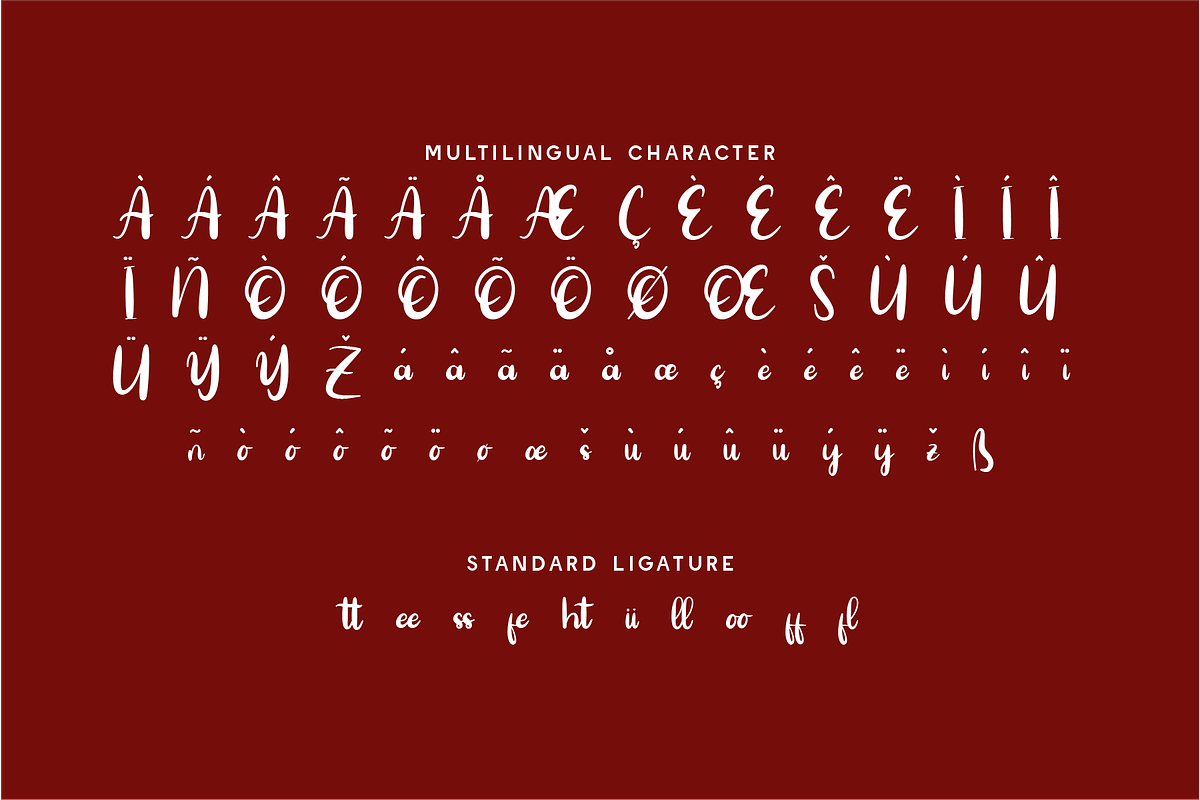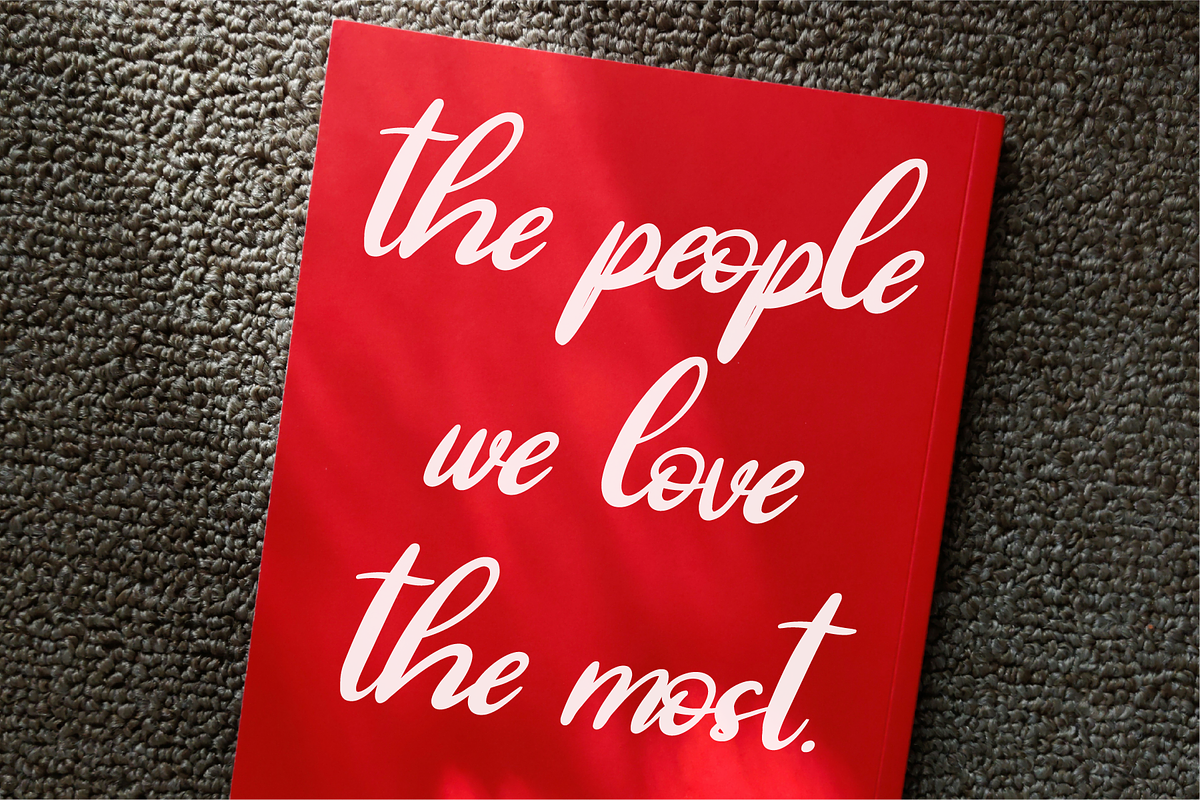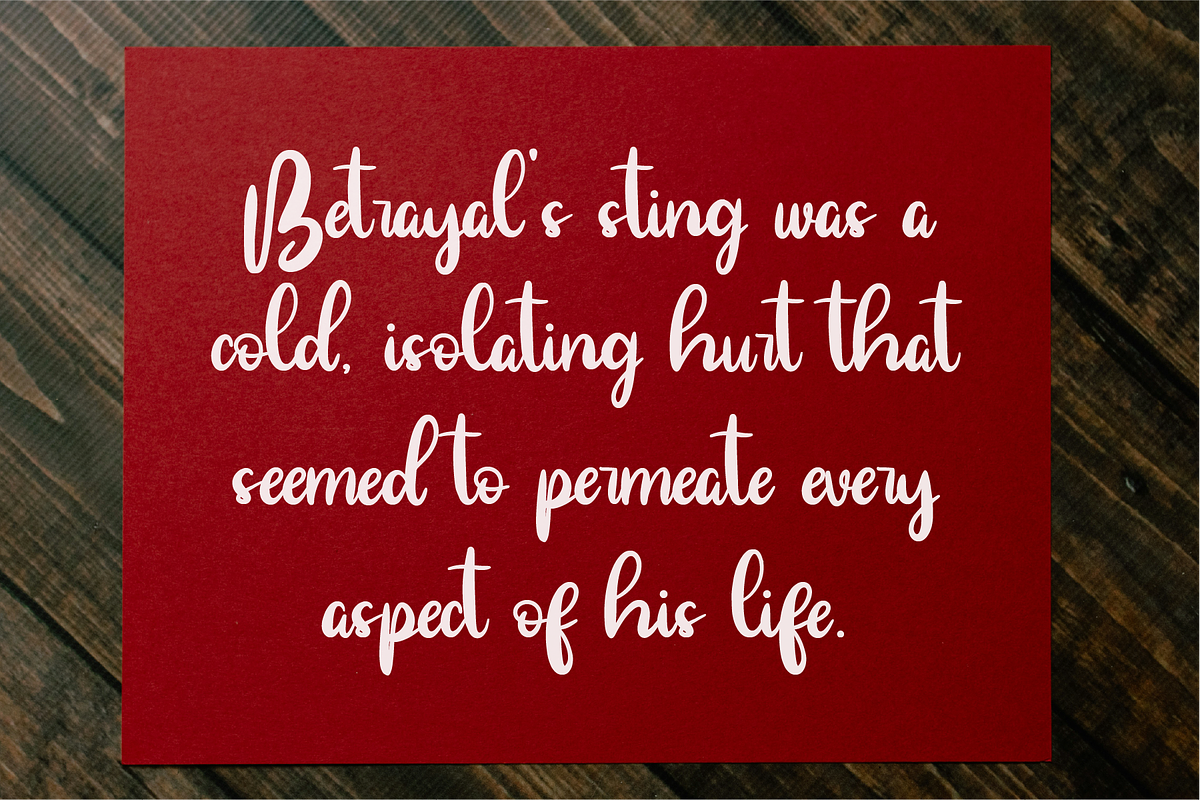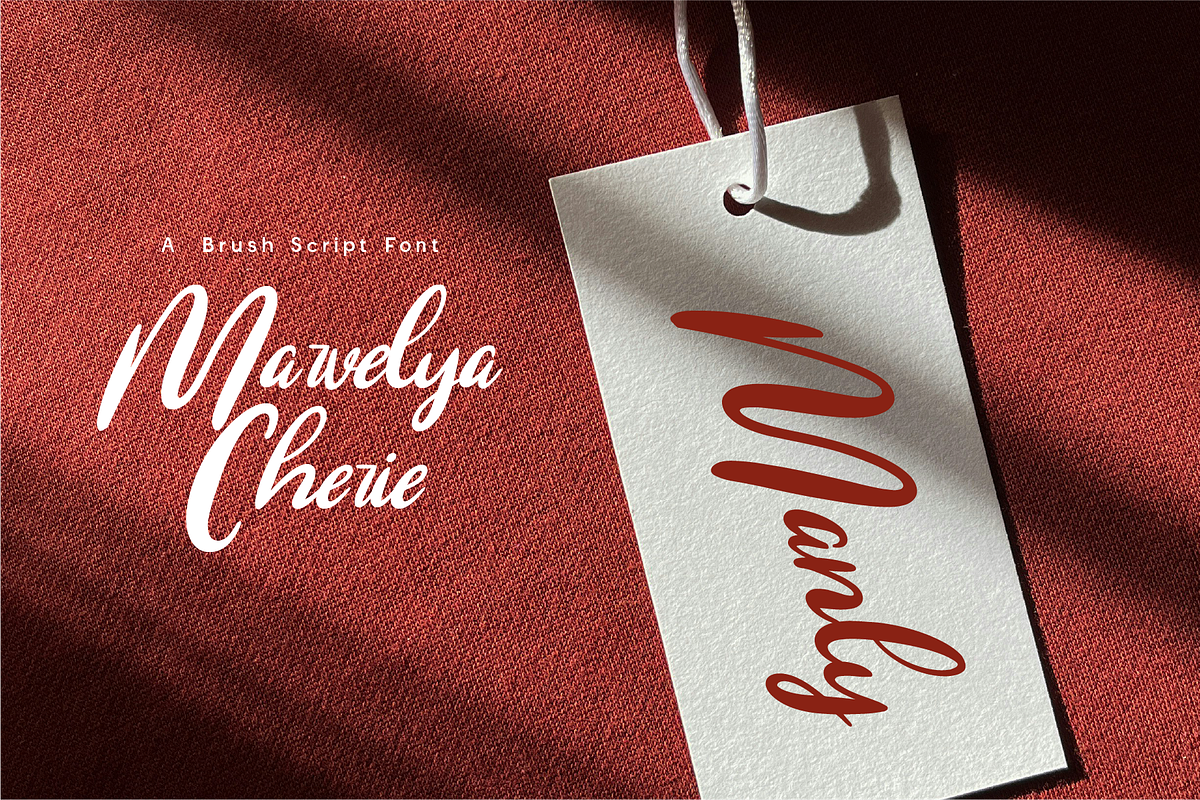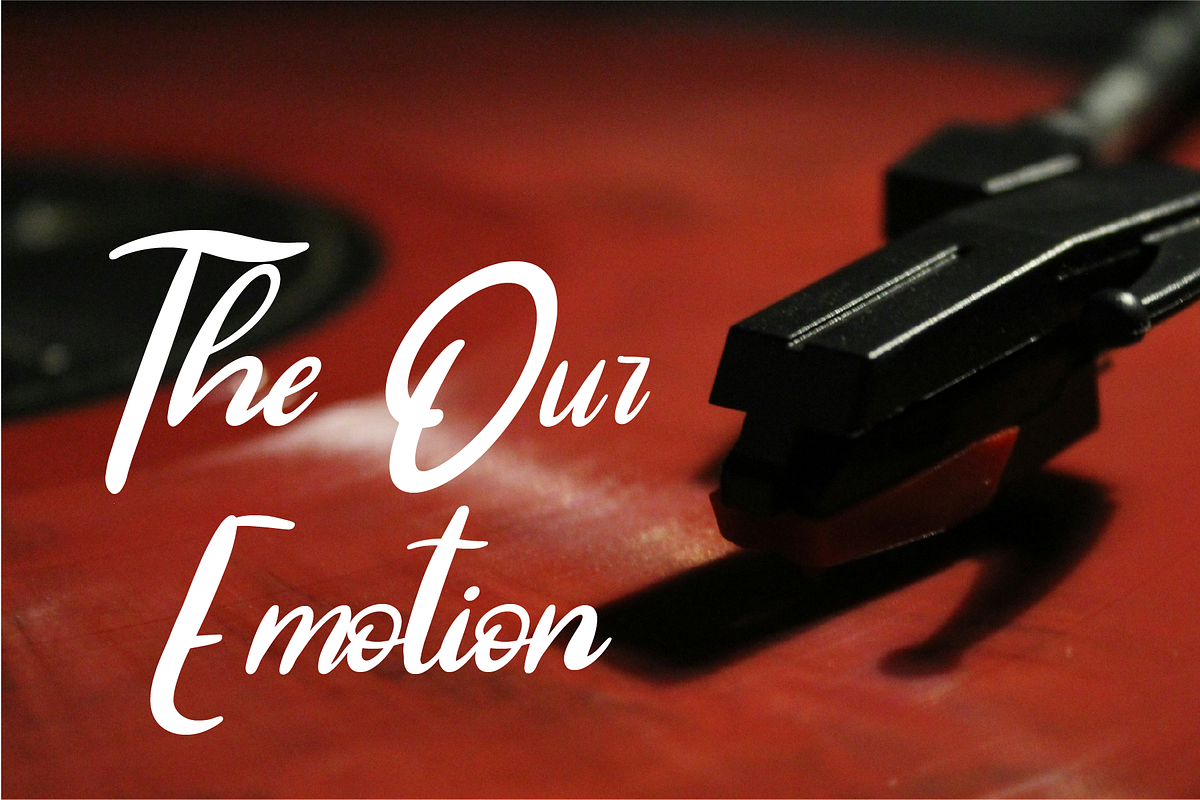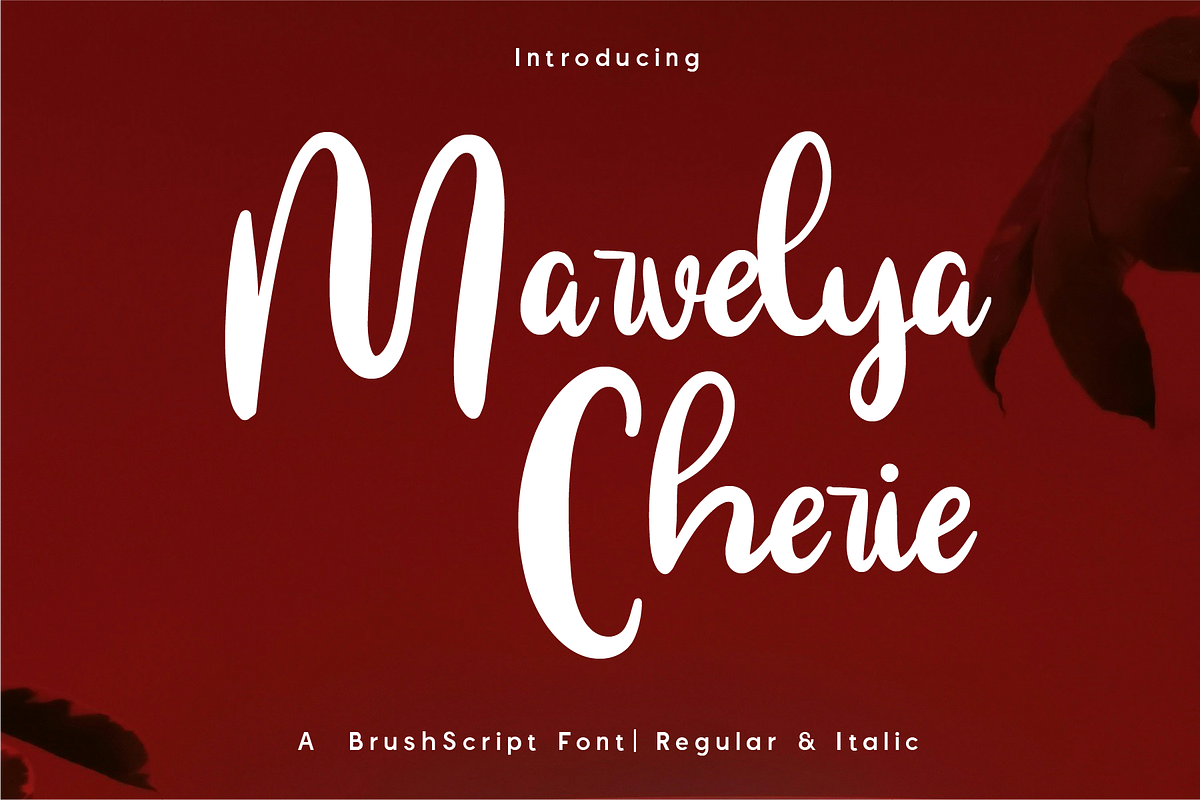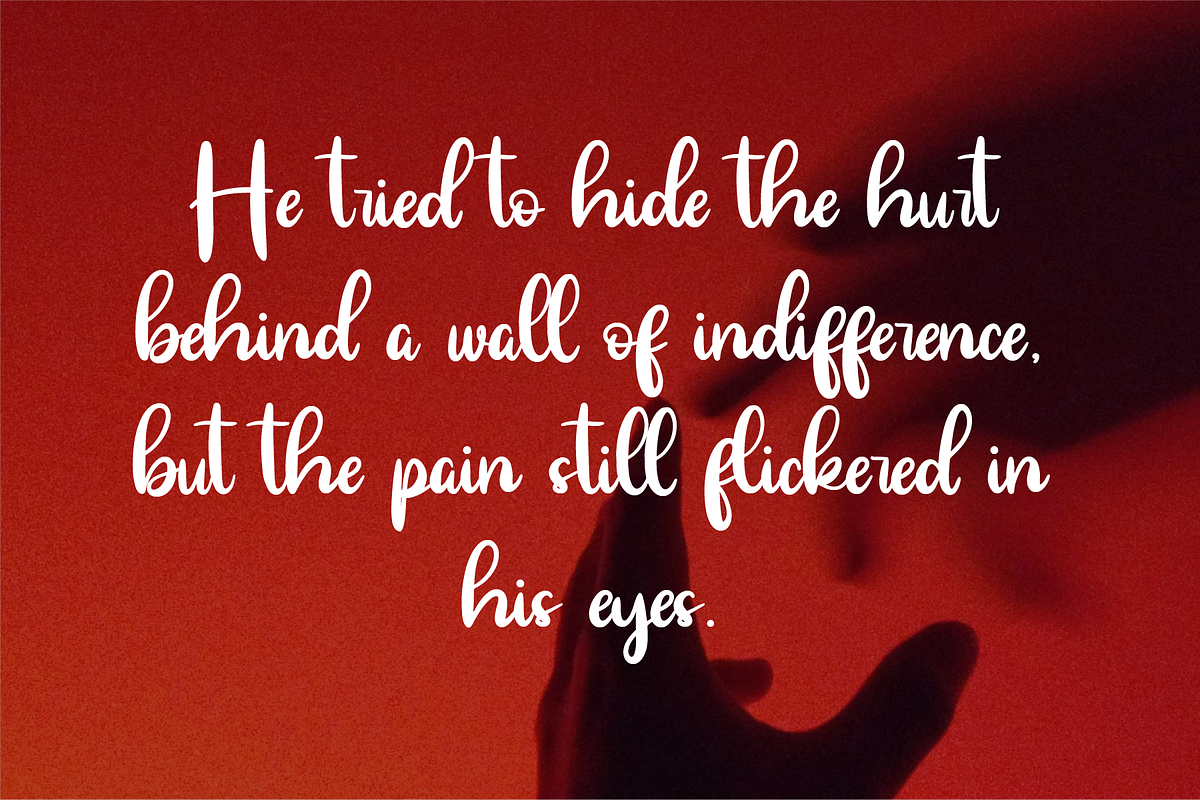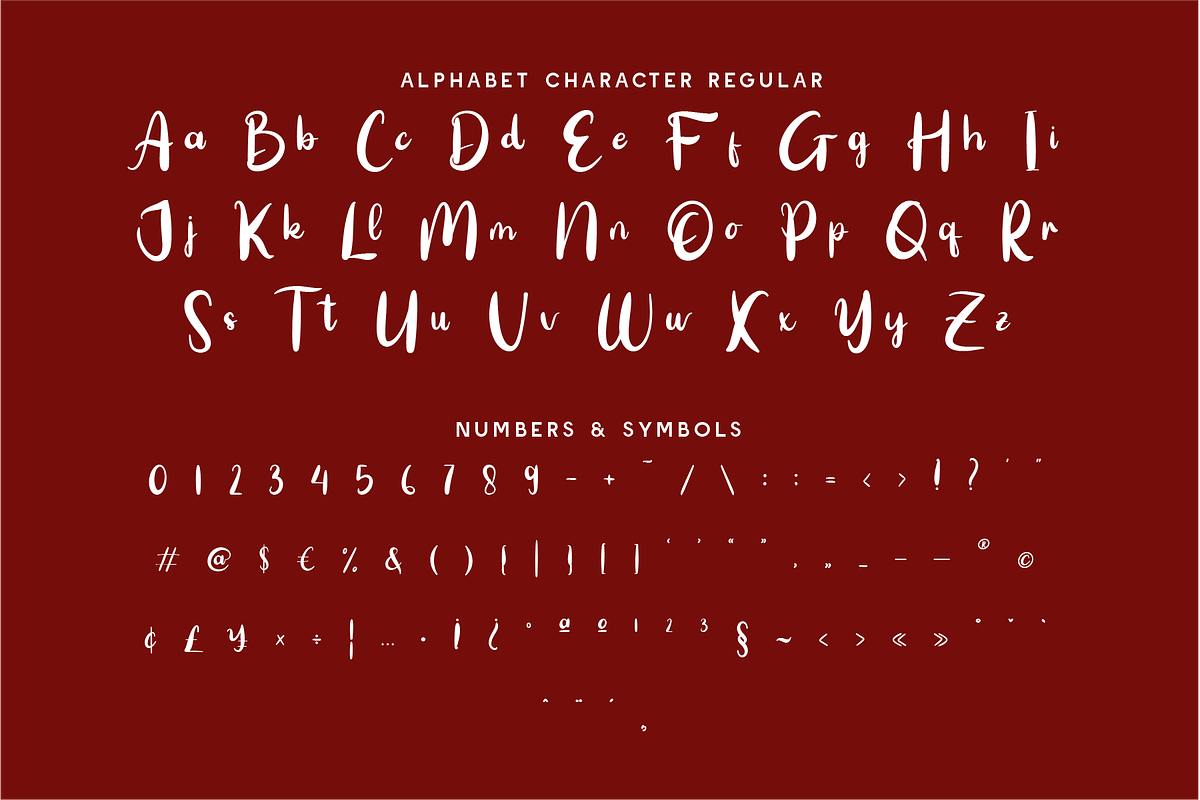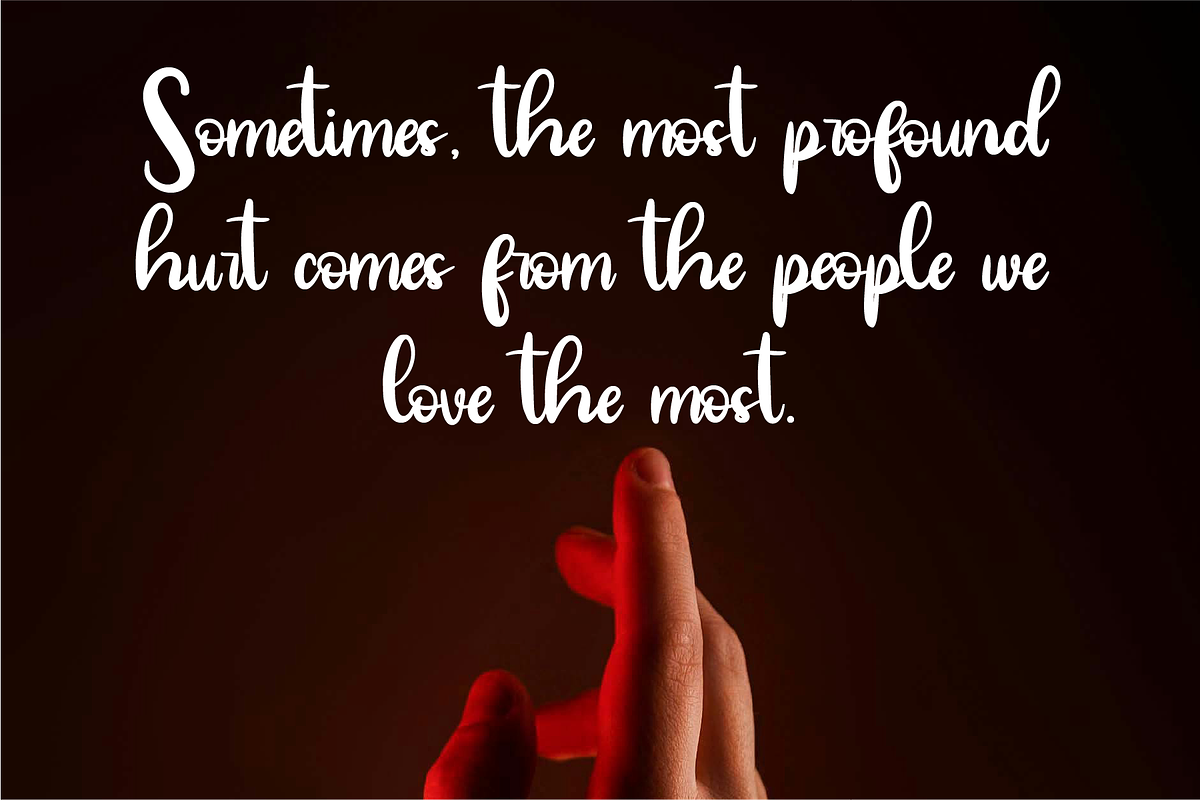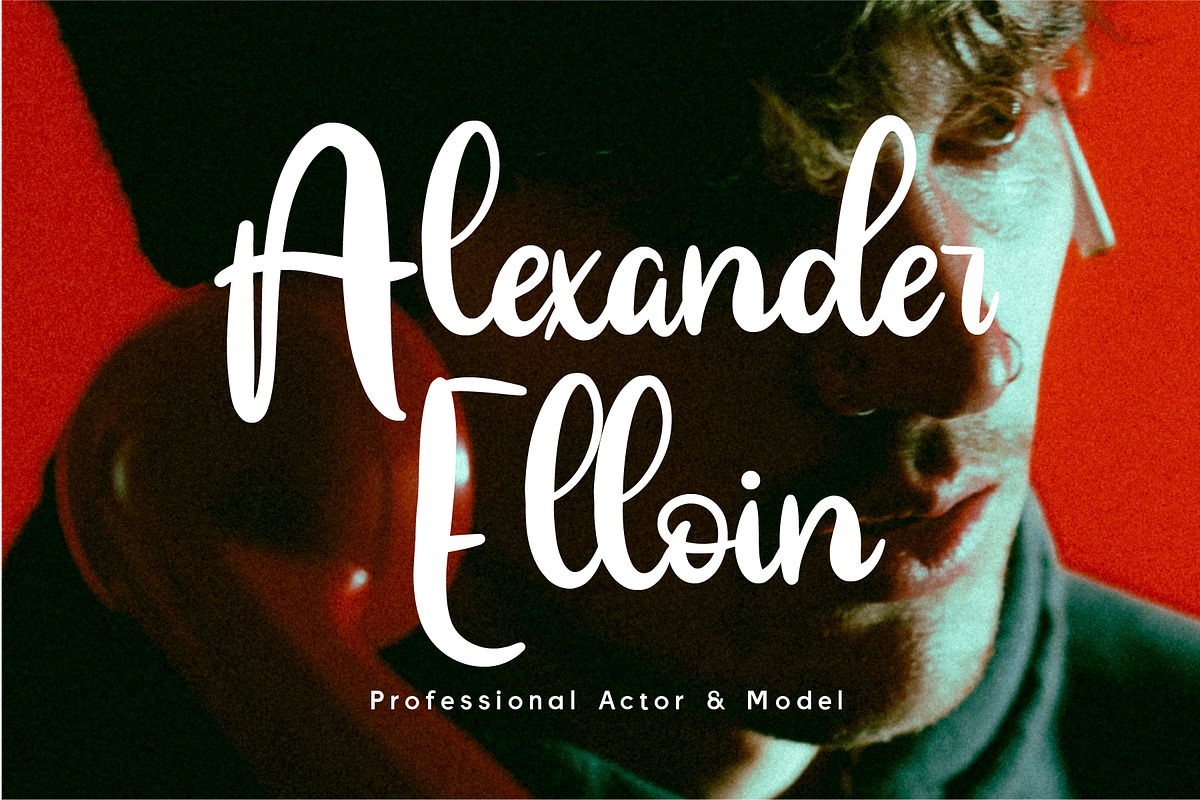
Marvelya Cherie - Brush Calligraphy
Marvelya Cherie – A Charming & Expressive Brush Script Font Introducing Marvelya Cherie, a bold and sophisticated brush script font that blends energy, elegance, and artistic flair into every stroke. Designed with smooth curves and fluid motion, this typeface radiates warmth and personality, making it the perfect choice for branding, packaging, invitations, advertising, and stylish editorial projects. Available in Regular & Italic styles, Marvelya Cherie offers versatility and expressive charm, making it easy to create eye-catching logos, elegant social media graphics, and beautifully handwritten designs. Whether you need a font for a luxury beauty brand, fashion label, or heartfelt greeting card, this script delivers a stunning balance of boldness and grace.
Why Choose Marvelya Cherie?
🖌 Elegant Brush Script: A dynamic blend of bold strokes and smooth curves. 🎭 Versatile Styles: Comes in Regular & Italic for more design flexibility. 💄 Perfect for Stylish Branding: Ideal for fashion, beauty, and luxury industries. 🎨 Handwritten with Character: Adds a personal and artistic touch to any project. Make your designs stand out with confidence and charm—Download Marvelya Cherie today and bring expressive beauty to your work! ✨🖋
- Standard Character A-Z, a-z, 0-9, Punctuation & symbols
- Regular and Italic